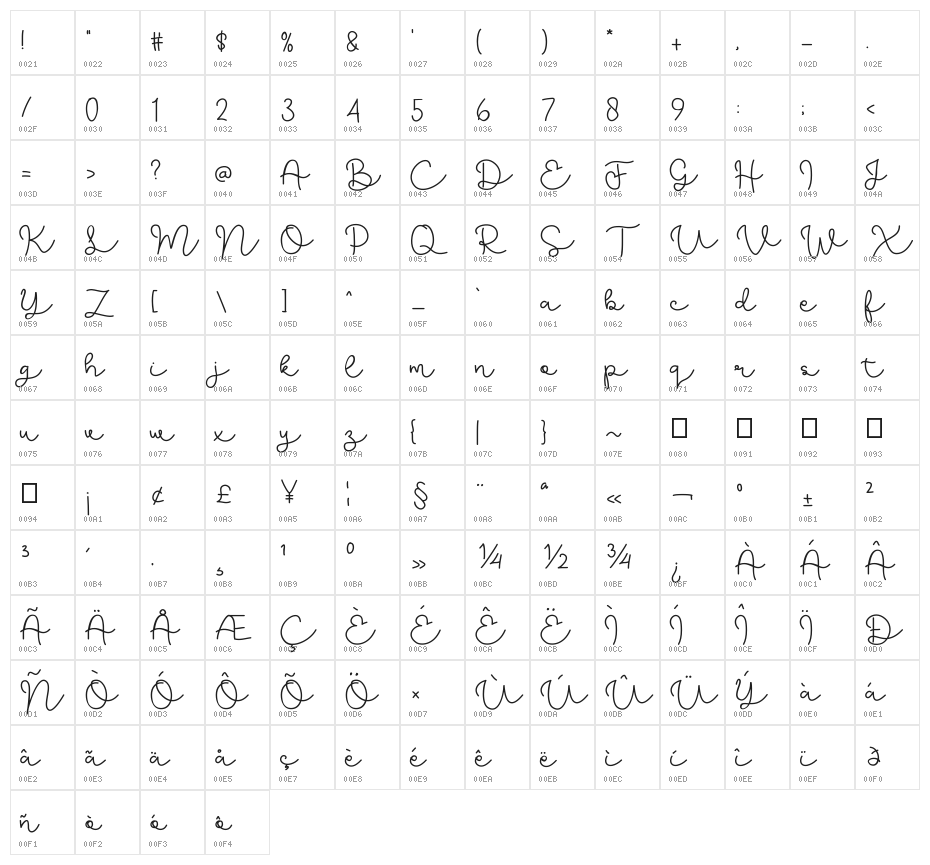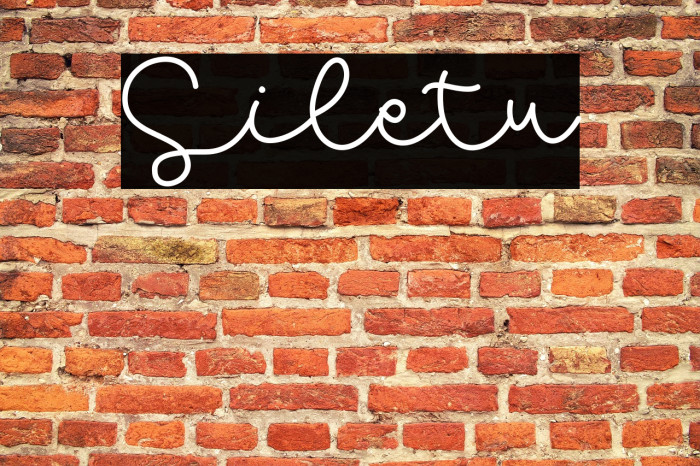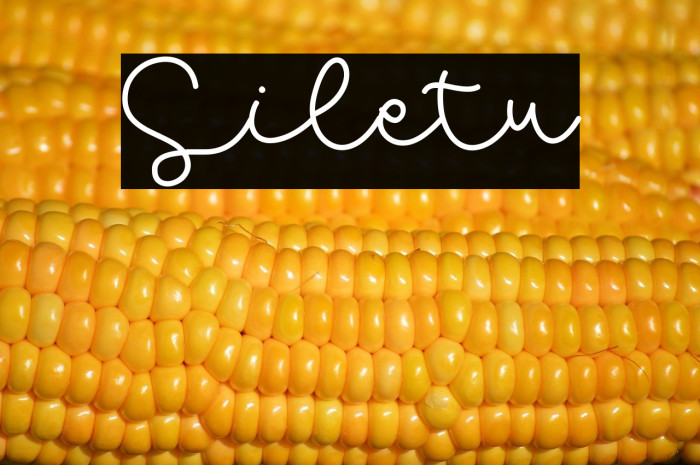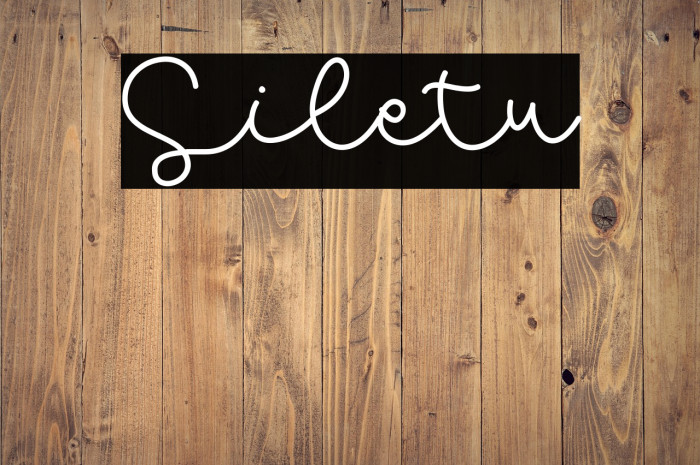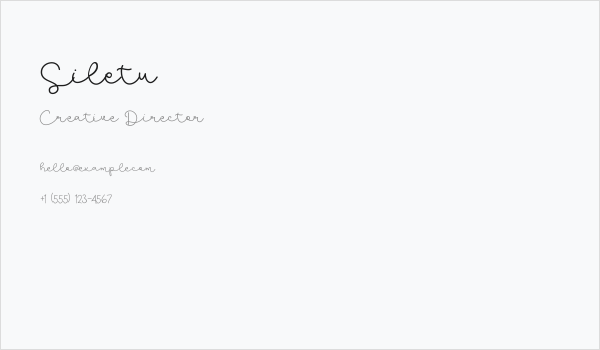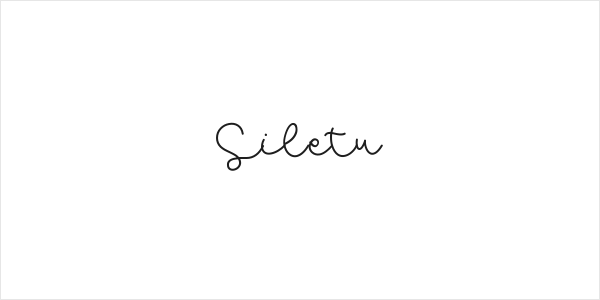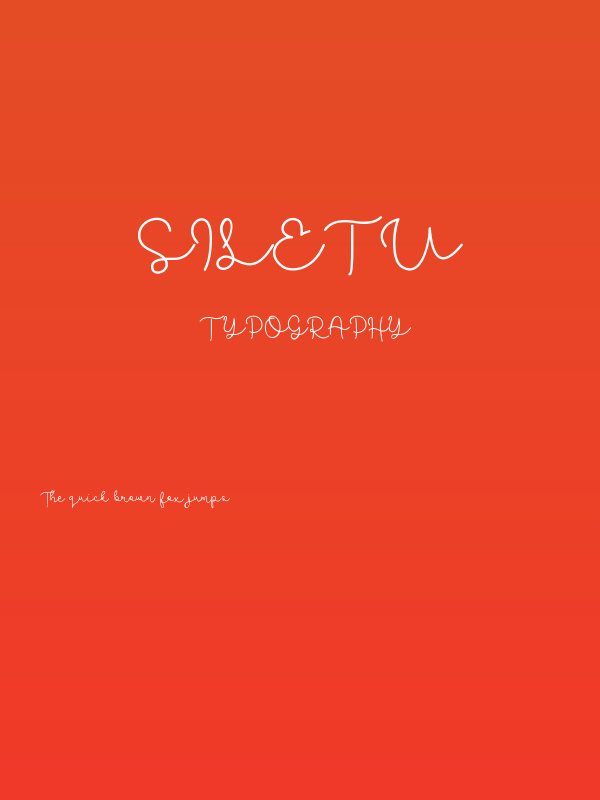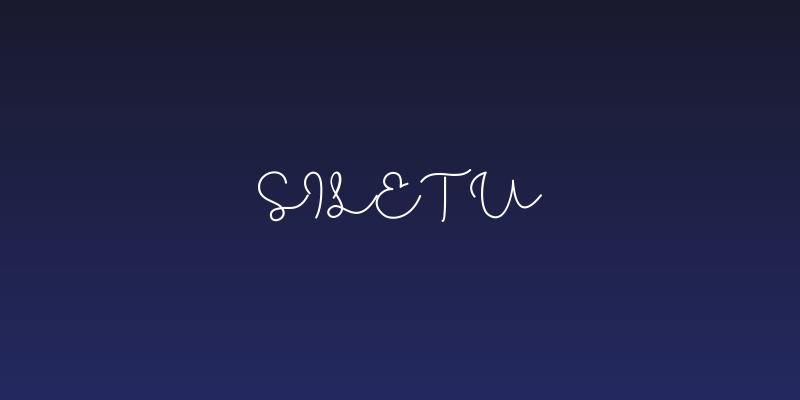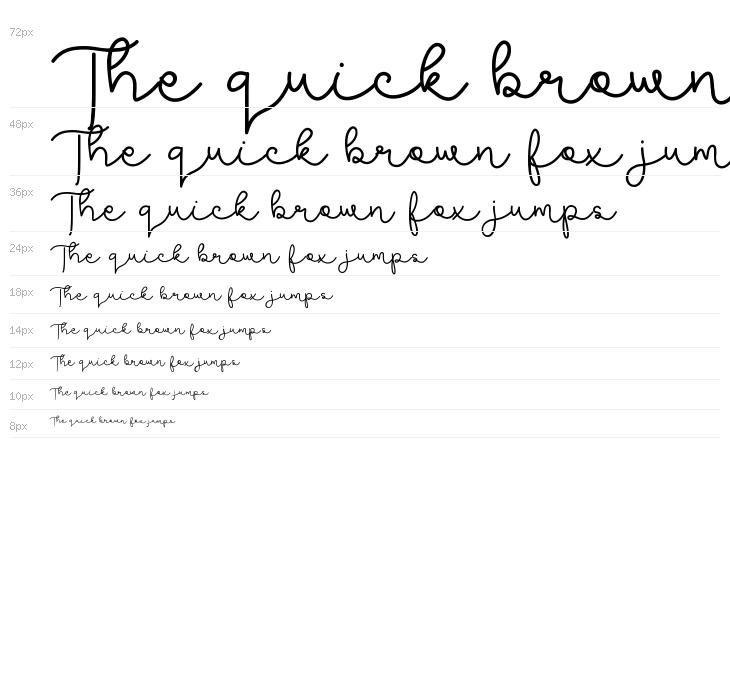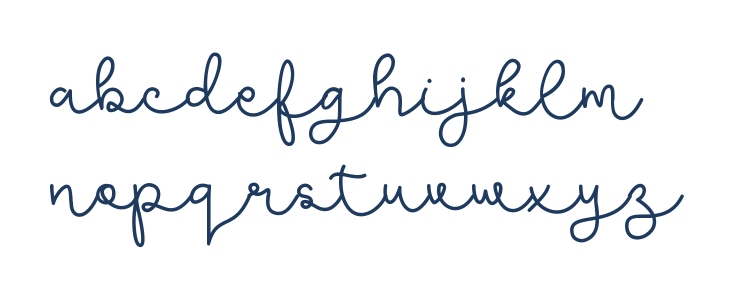
Siletu Font
Siletu Description
This font features a playful and elegant script style with flowing, connected letters that mimic natural handwriting. The uppercase letters are slightly more structured, while the lowercase letters exhibit a charming, casual flair. The numbers maintain the same whimsical style, ensuring consistency throughout. Special characters are crafted with the same attention to detail, making them blend seamlessly with the rest of the font. The overall appearance is both sophisticated and approachable, ideal for projects that require a personal touch.
| Use Case | Logos, Invitations, Social media posts |
| Proposed Projects | Ideal for wedding invitations, greeting cards, personal branding, and social media graphics. |